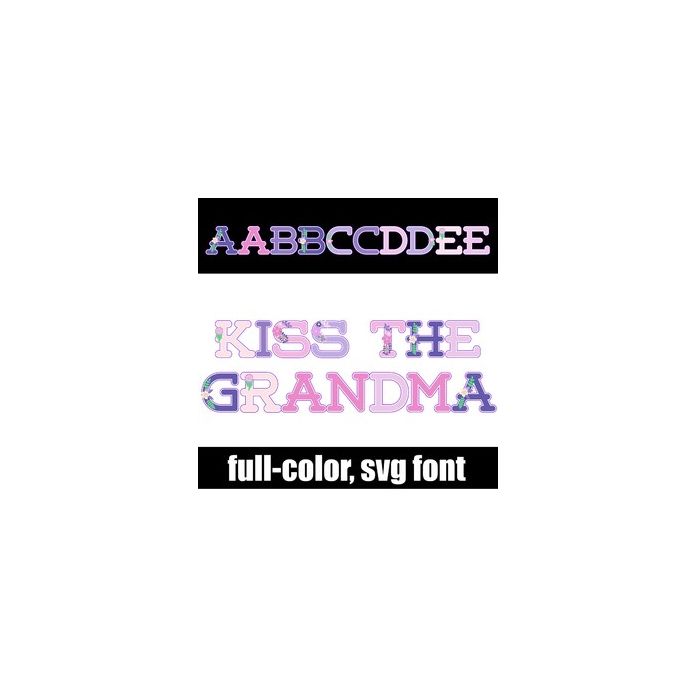
This full-color font features a heavy serif letter in a purple color palette with purple flowers throughout. There is an alt case w/ additional colors you can access through your system or Silhouette's glyph map.